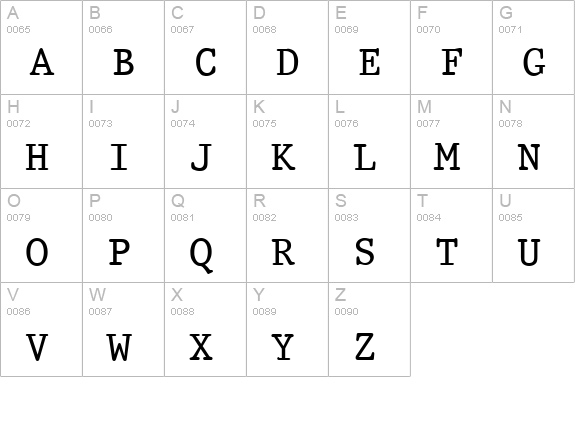
QTPristine Regular Font Details
QTPristine Regular is the standard, neutral variant in the QTPristine typeface family \xE2\x80\x94 well suited to general body text, paragraphs, and standard typographic work.
QTPristine Regular font is a stunning and versatile typeface that is perfect for a wide range of design projects. Its clean and modern design makes it suitable for both digital and print applications, adding a touch of sophistication and elegance to any project. This font features a balanced combination of rounded and straight edges, giving it a unique and eye-catching appearance. The letterforms are meticulously crafted, ensuring clarity and legibility even at smaller sizes. QTPristine Regular font is perfect for various design purposes, including logo design, branding, editorial design, packaging, and more. Its versatility allows it to be paired with both serif and sans-serif fonts, creating endless possibilities for creative combinations. The best part is, QTPristine Regular font is available for free! You can easily download it at FontsMarket.com, a trusted source for high-quality fonts. Whether you're a professional designer or a hobbyist, this font is a valuable addition to your collection. Don't miss out on this amazing opportunity to enhance your designs with QTPristine Regular font. Download it now and let your creativity soar!